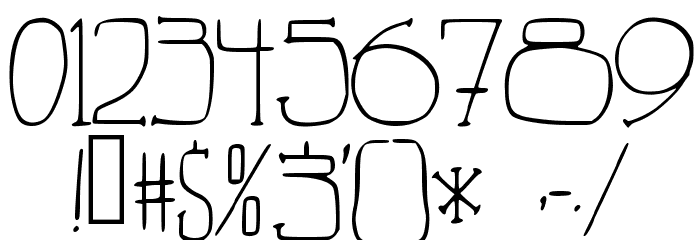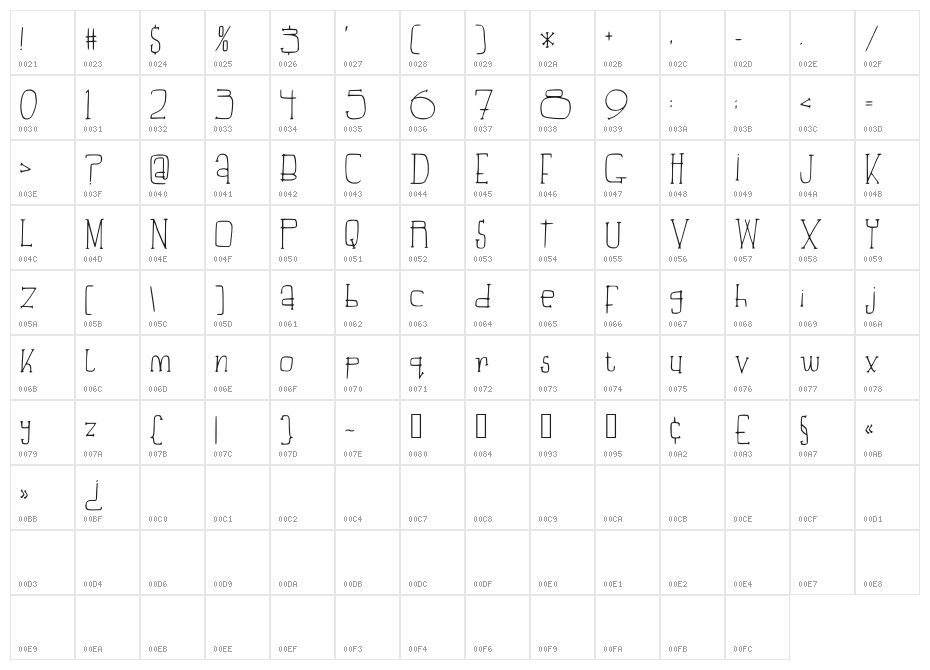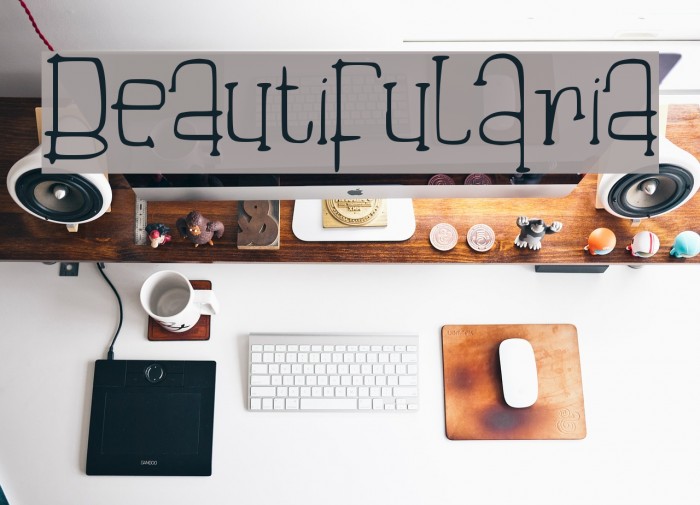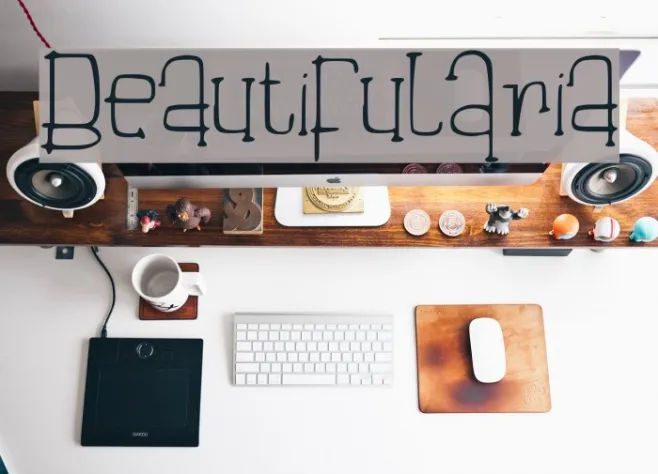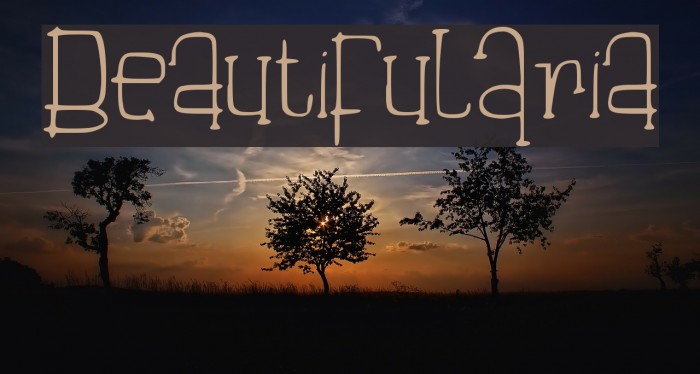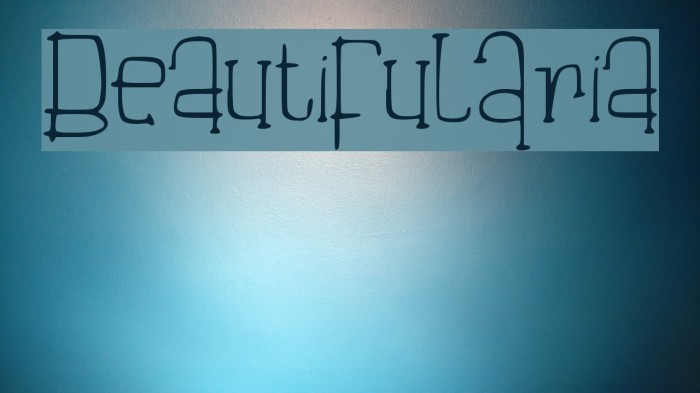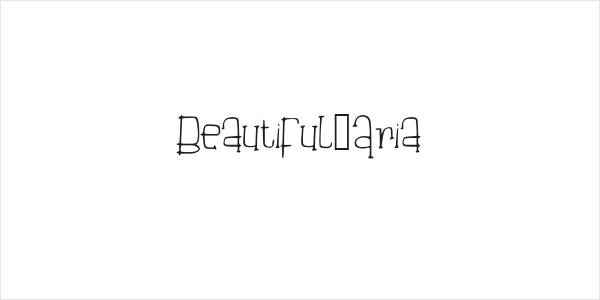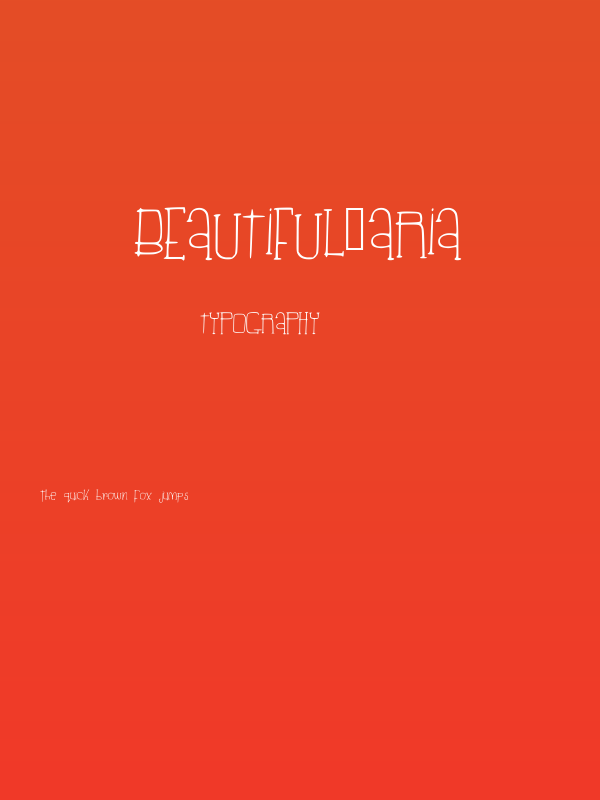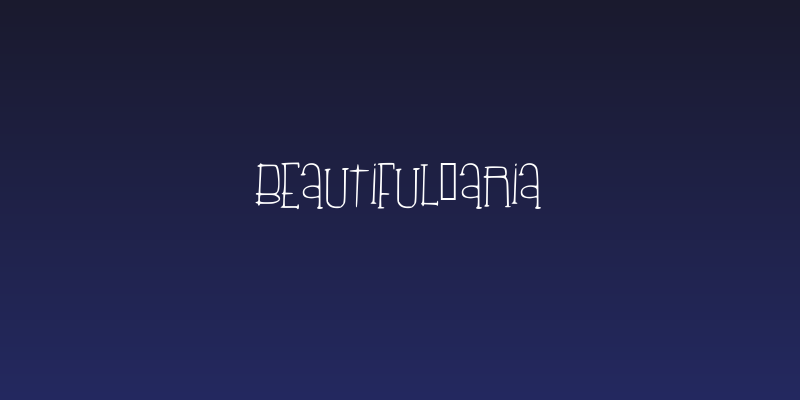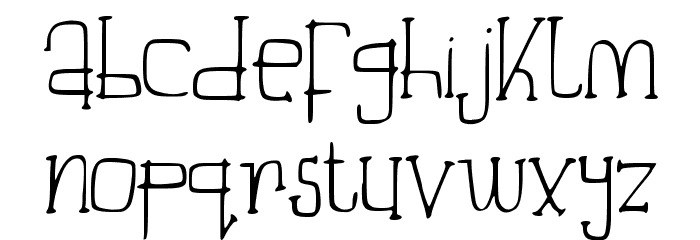
Beautiful_Aria Font
Beautiful_Aria Description
This font features a unique and artistic design with elongated and narrow letterforms. The characters have a hand-drawn appearance, giving them a whimsical and creative flair. The uppercase letters are tall and slender, while the lowercase letters maintain a consistent style with slight variations in height and width. The numerals are distinct, with rounded edges and a playful touch. Special characters are crafted with the same artistic approach, adding to the font's overall charm. The strokes are thin, with a low contrast between thick and thin lines, contributing to its delicate and airy feel. This font is ideal for projects that require a touch of elegance and creativity.
| Use Case | Headlines, Artistic projects, Branding |
| Proposed Projects | Ideal for creative projects such as invitations, greeting cards, artistic posters, and branding that requires a unique and elegant touch. |